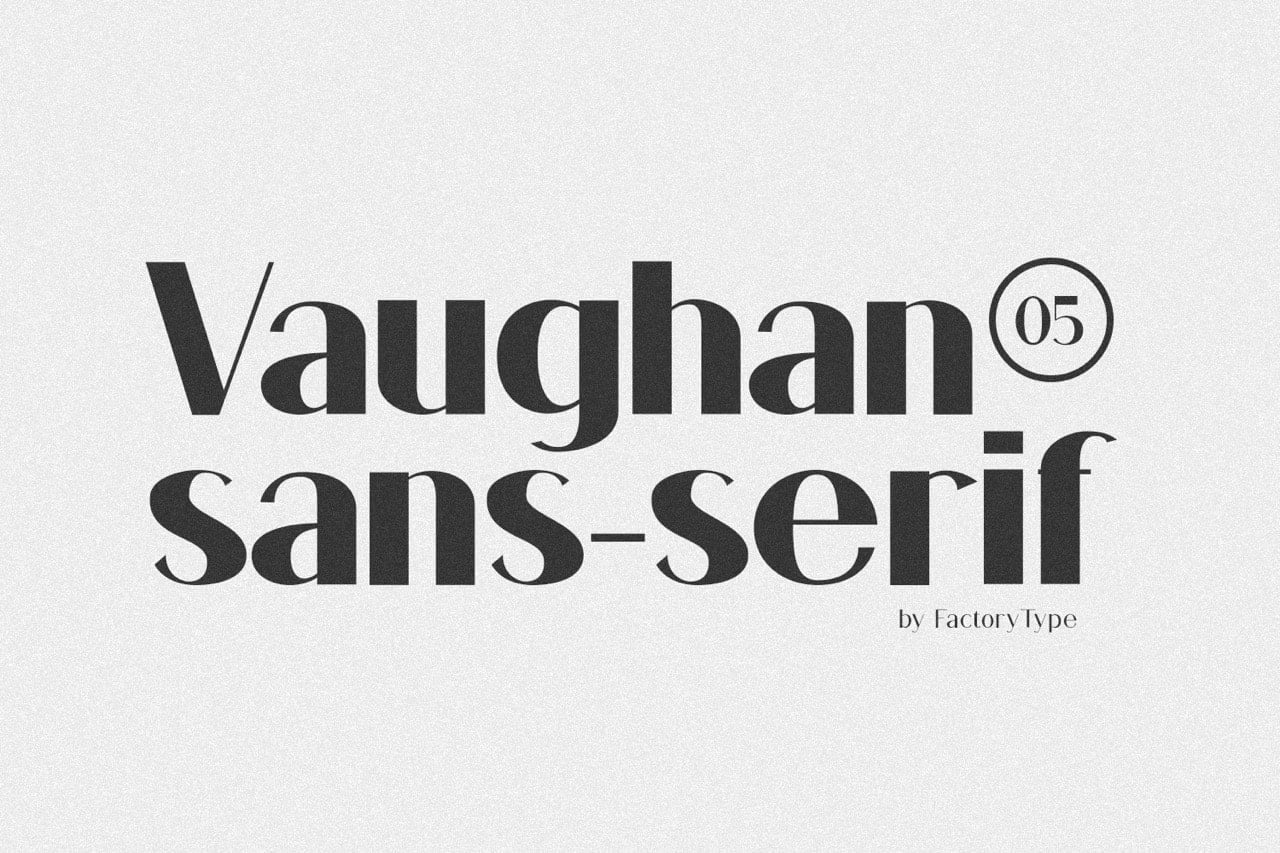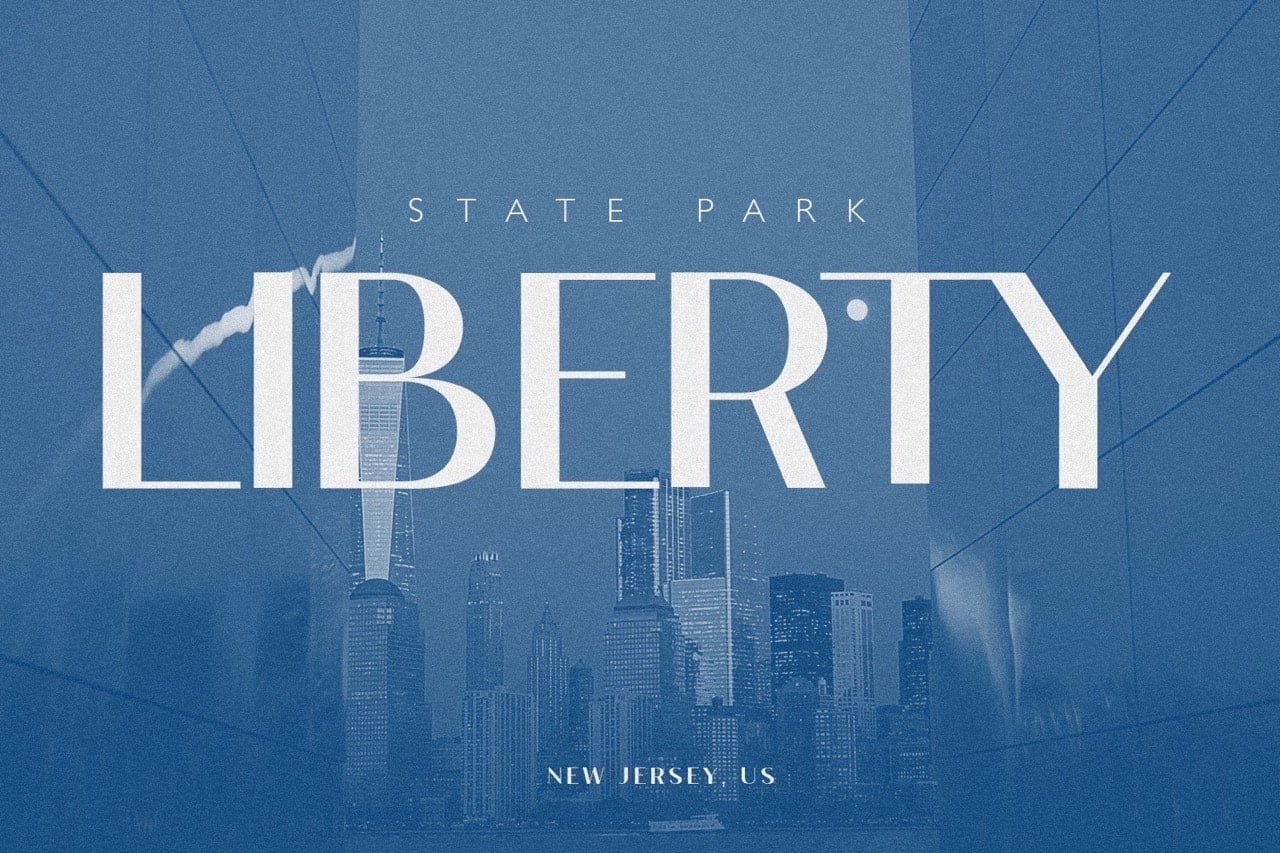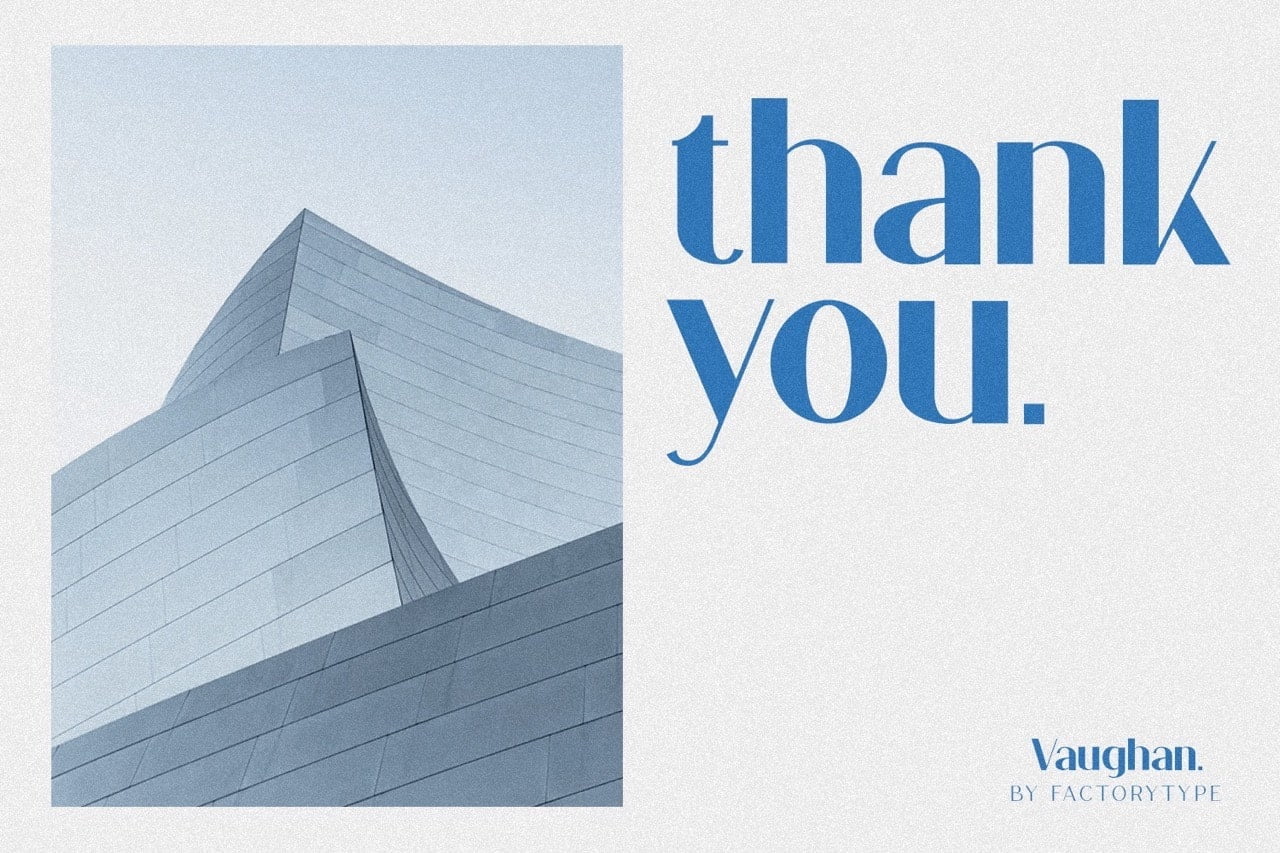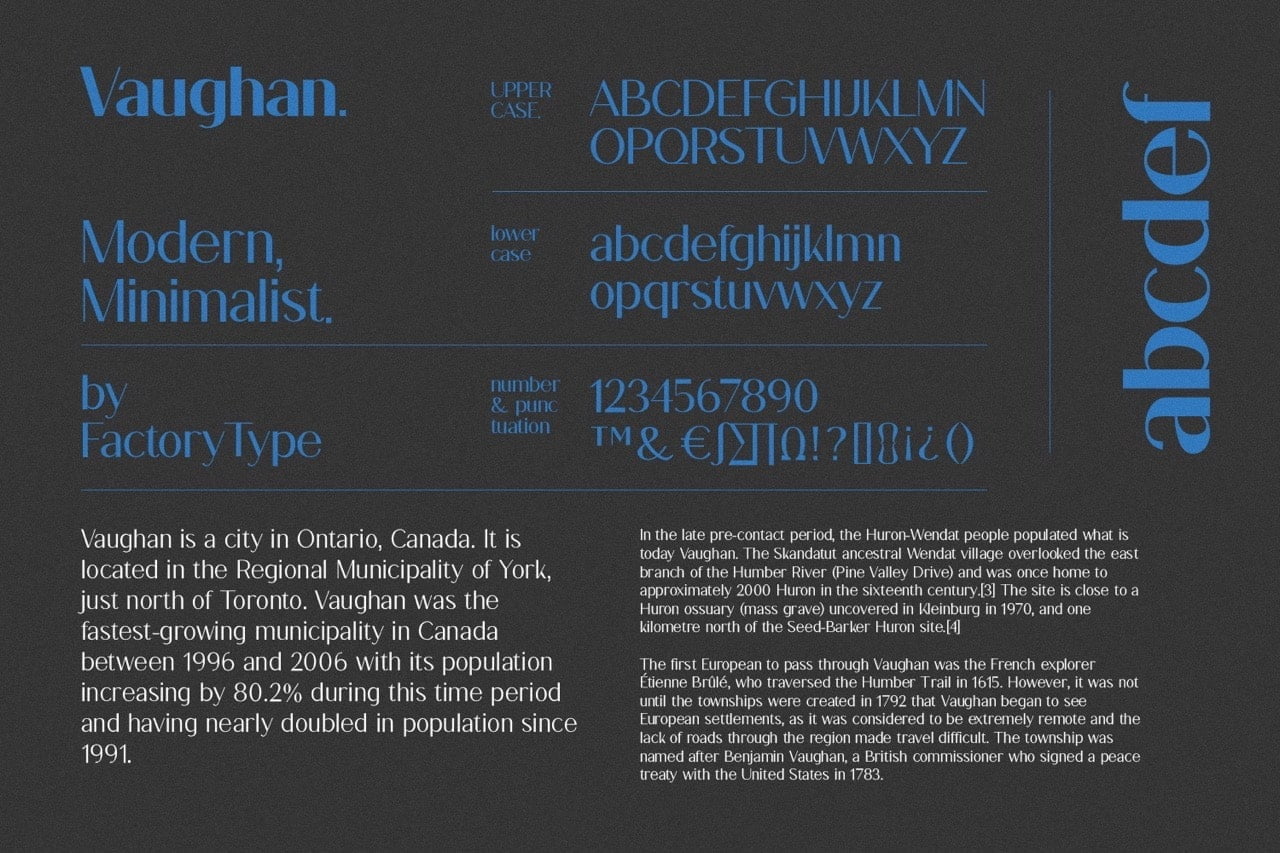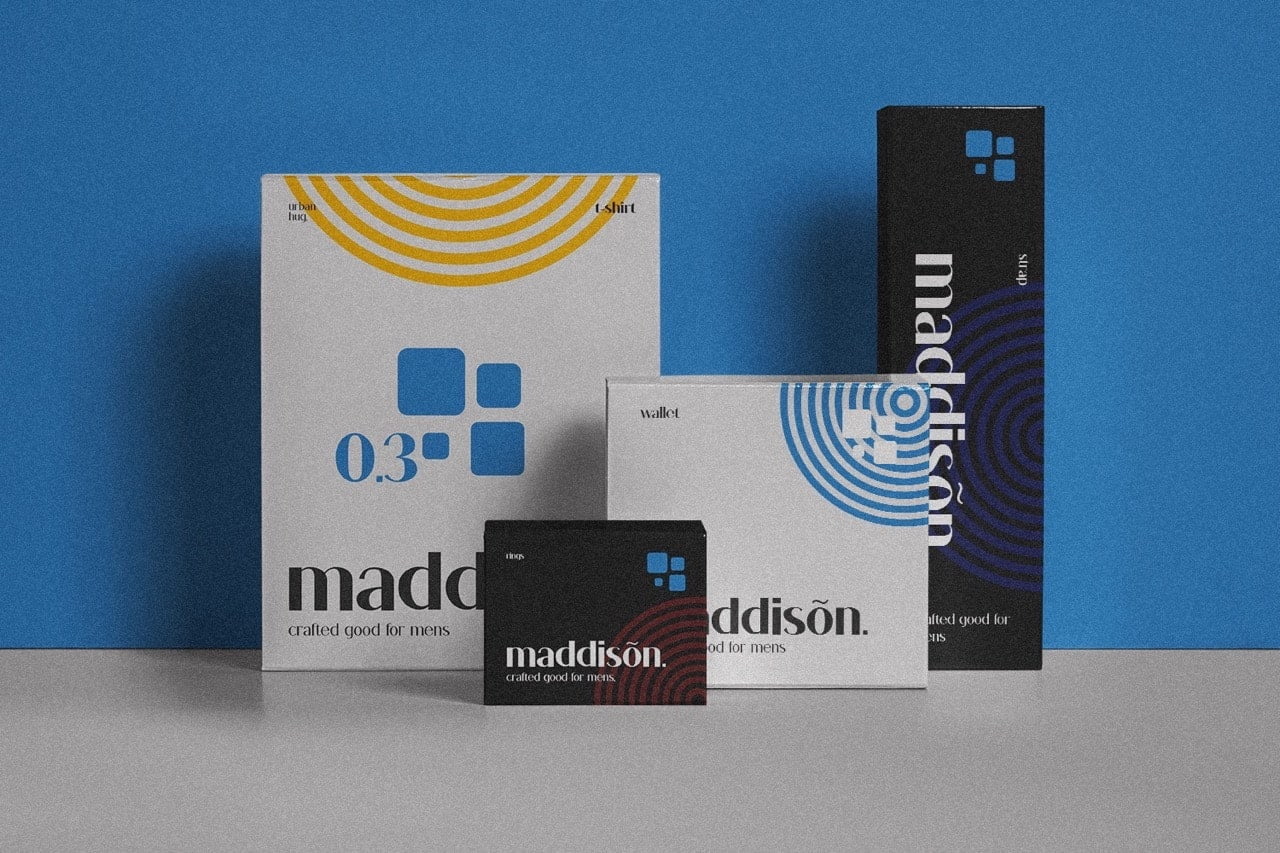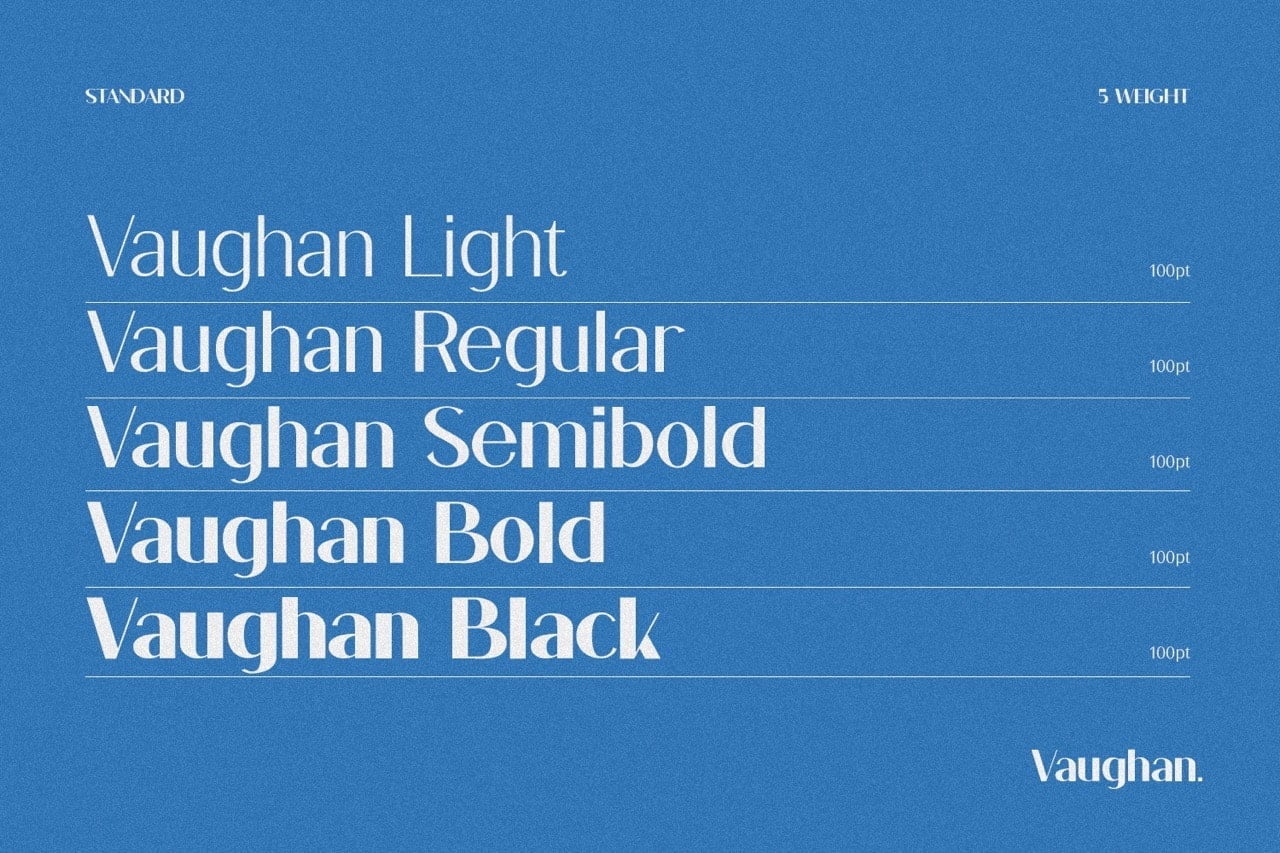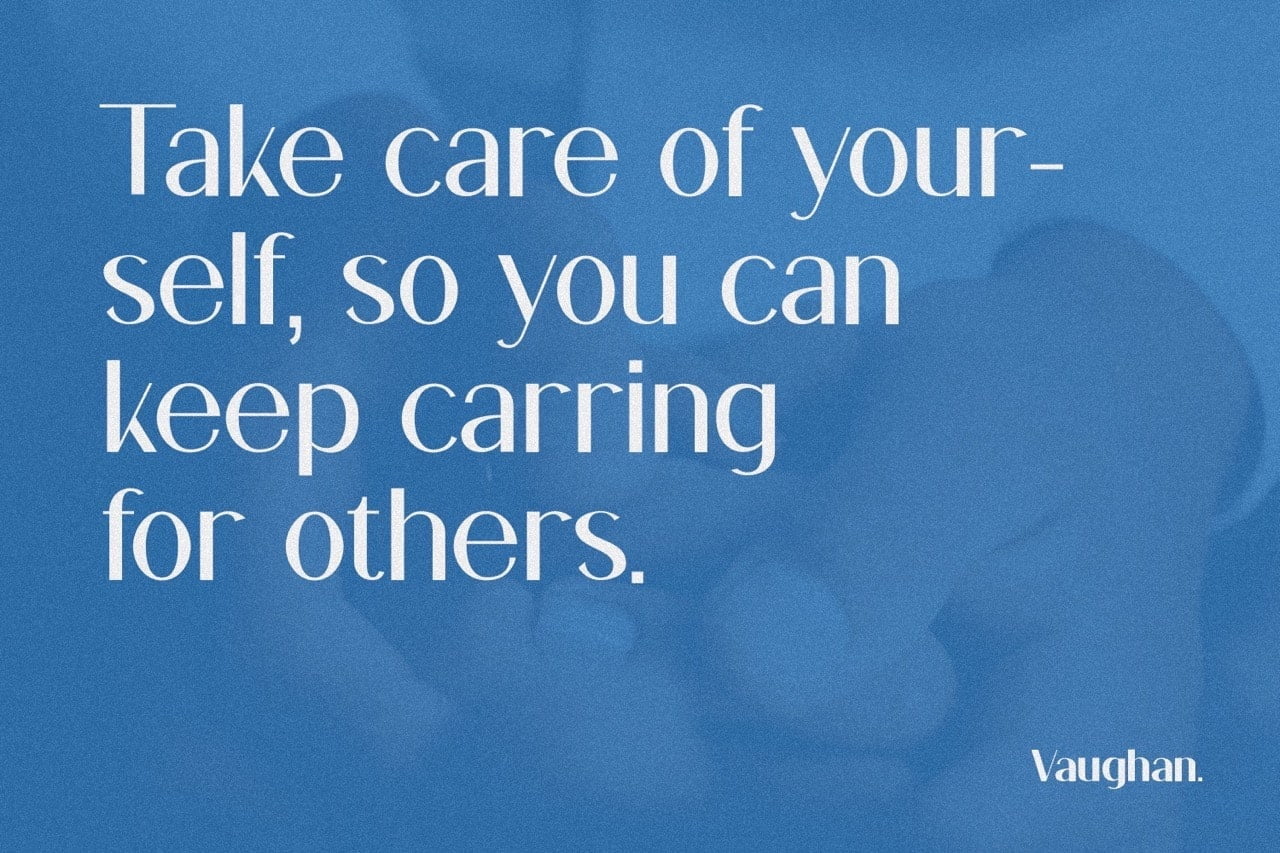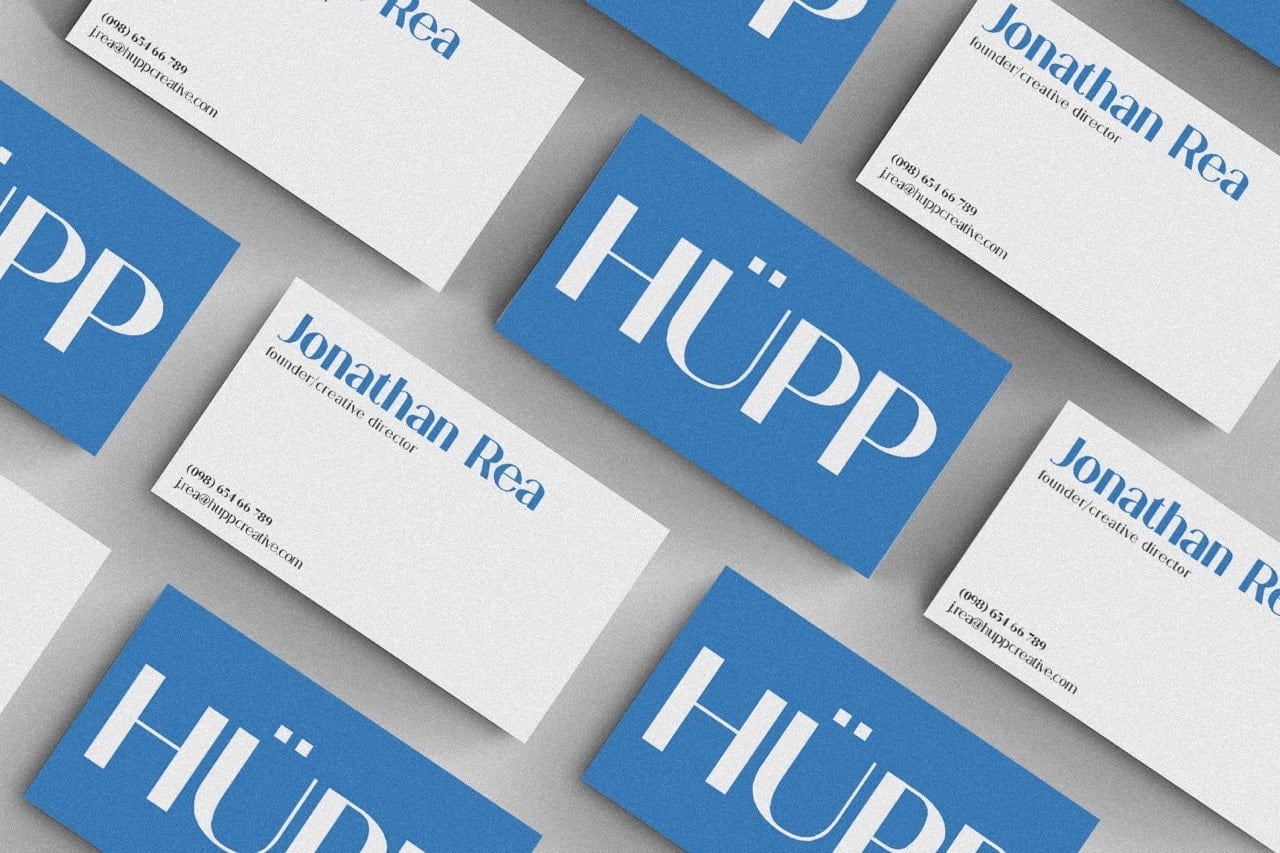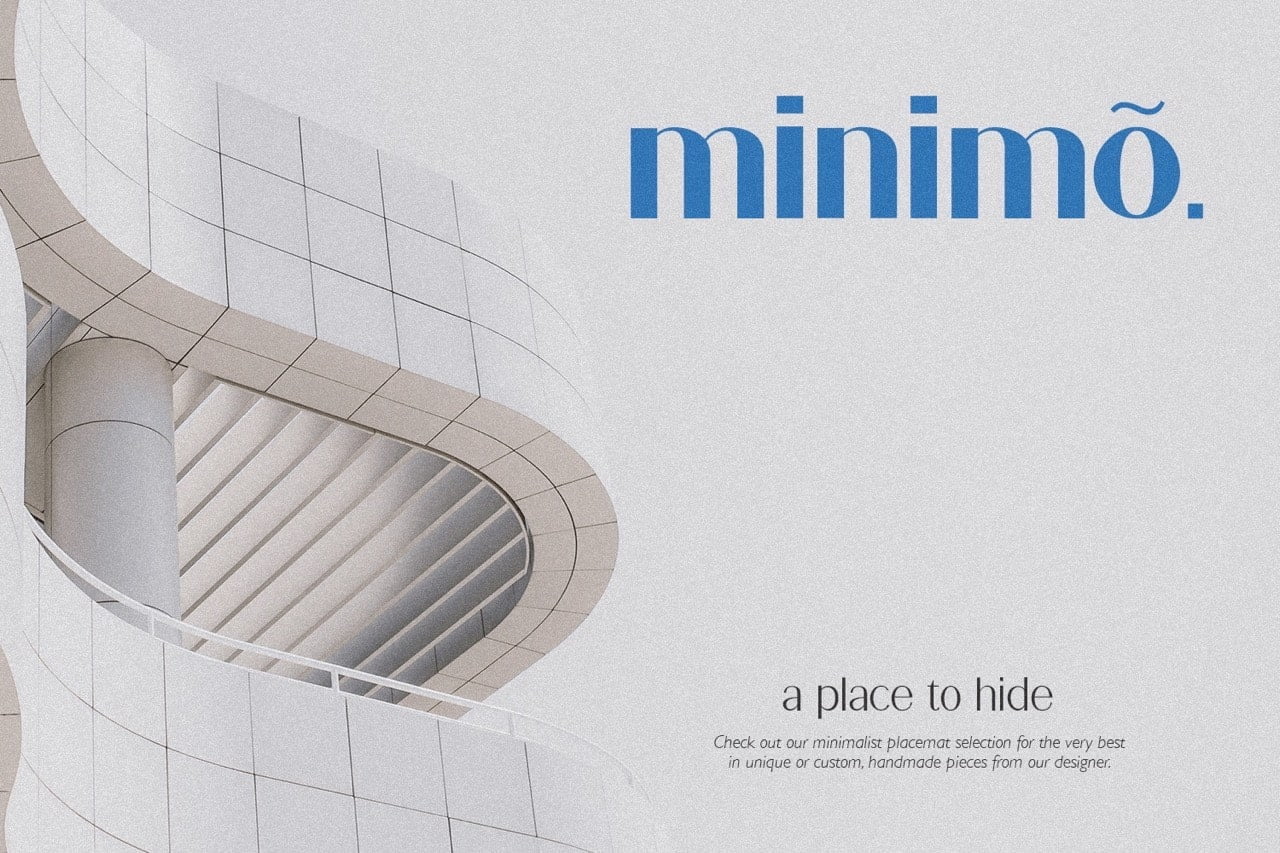
With Vaughan, you’re guaranteed a modern and balanced sans serif font family with a wide array of weights, providing a variety of options to suit your needs. Whether you’re creating brand identity, print, editorial design or branding visuals – Vaughan is ideal for any project that requires something professional and timeless.
- 5 Weights
- 4 Styles (Regular, Oblique, Italic and AllCaps)
- Stylistic Ligatures and Alternate Glyphs
Vaughan Sans